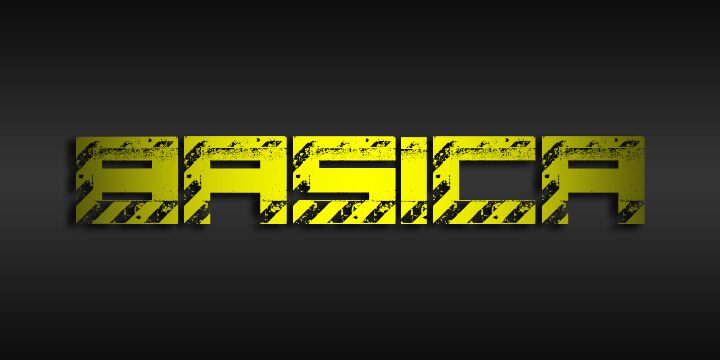
Basica Industrial by Carlos Matteoli is a free eroded techno display font with the heft of factory signage. Its broad, squared letters combine solid bars with stencil-like breaks and diagonal hazard stripes. The wear is coarse and uneven.
Industrial styling suits machinery posters and heavy-music merchandise. Game title cards use the severe geometry and damaged surface to suggest a hard-used mechanical world. On packaging, the striped cuts can turn a name into a warning-mark emblem rather than neutral lettering.